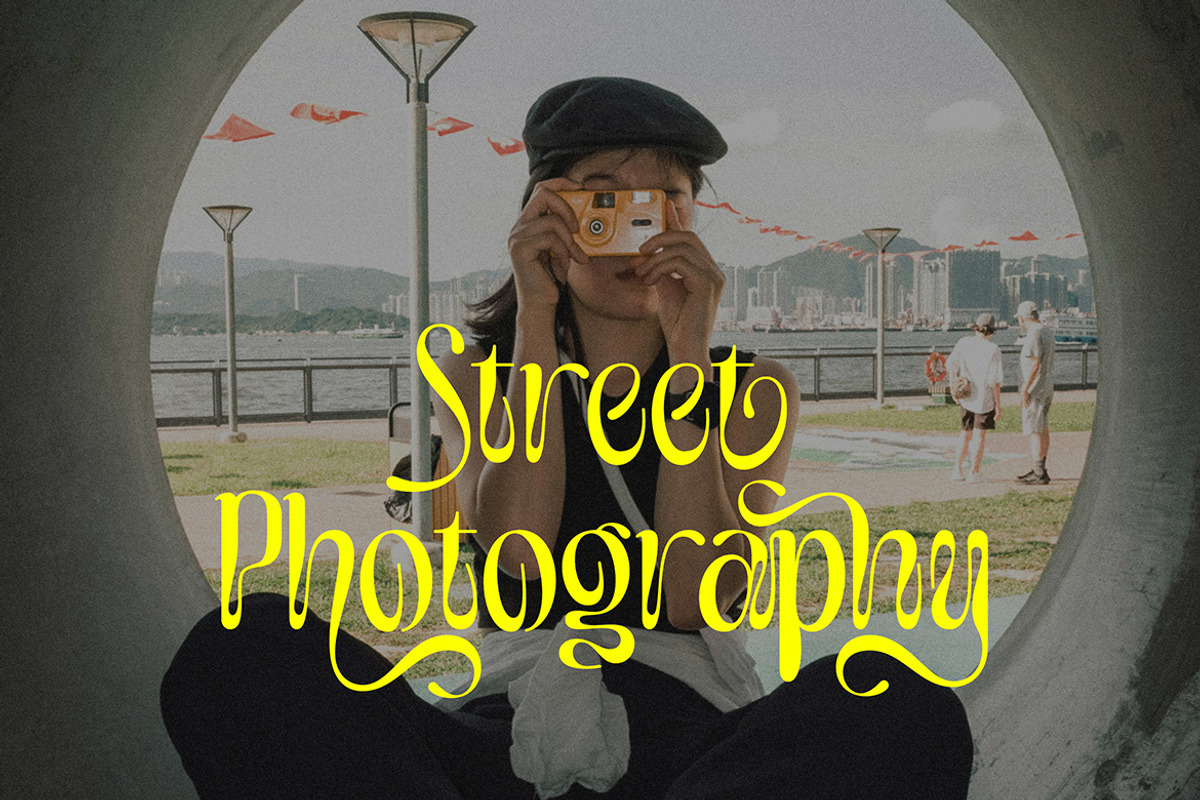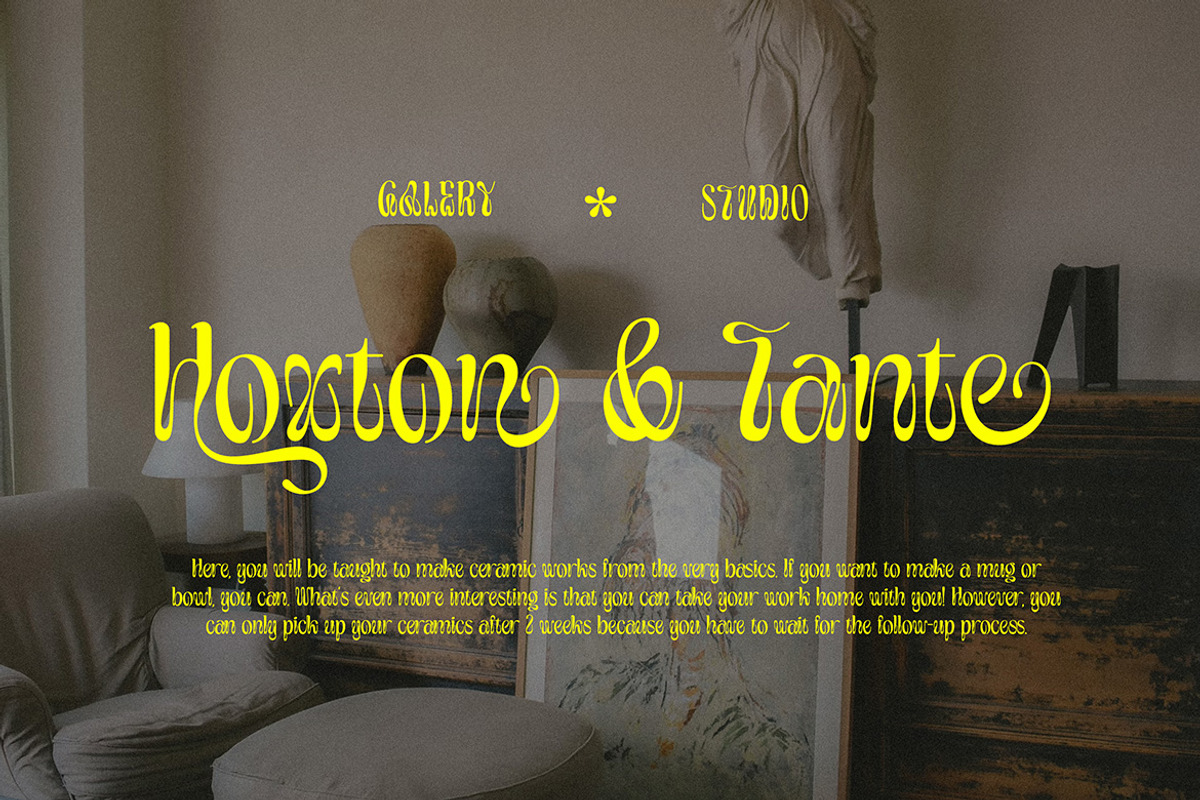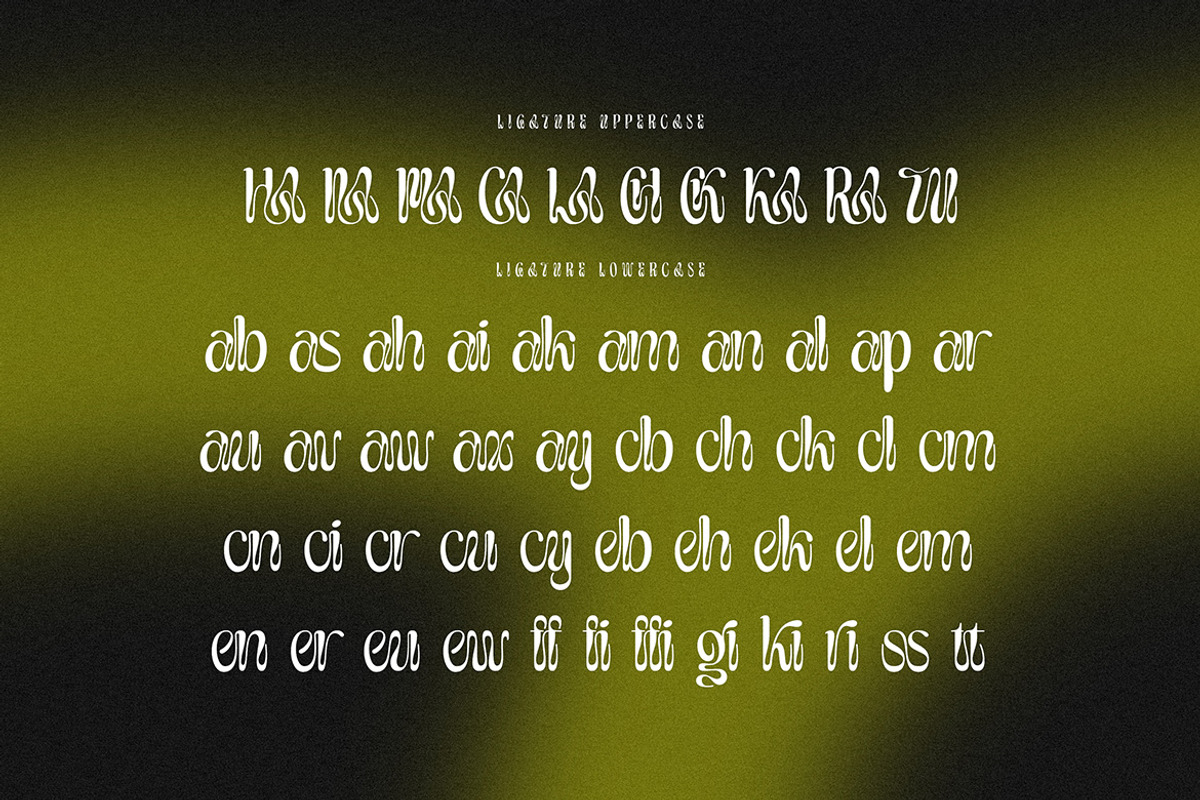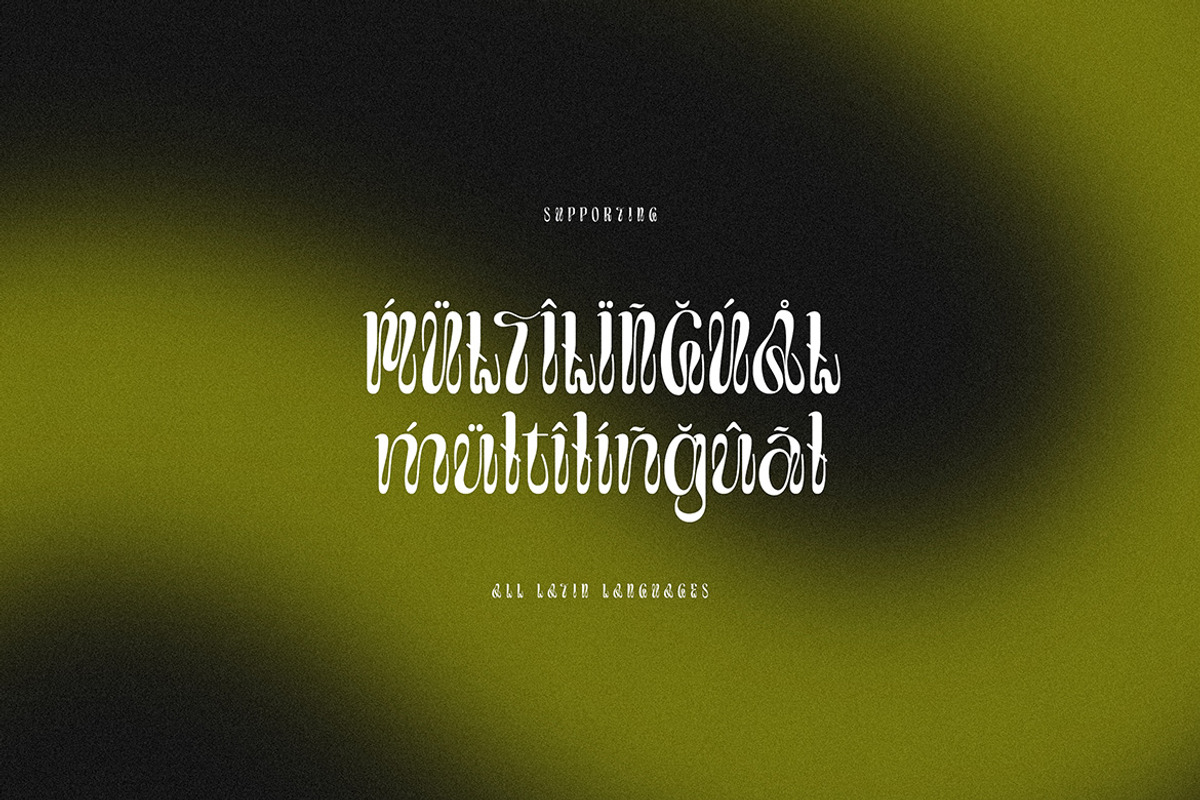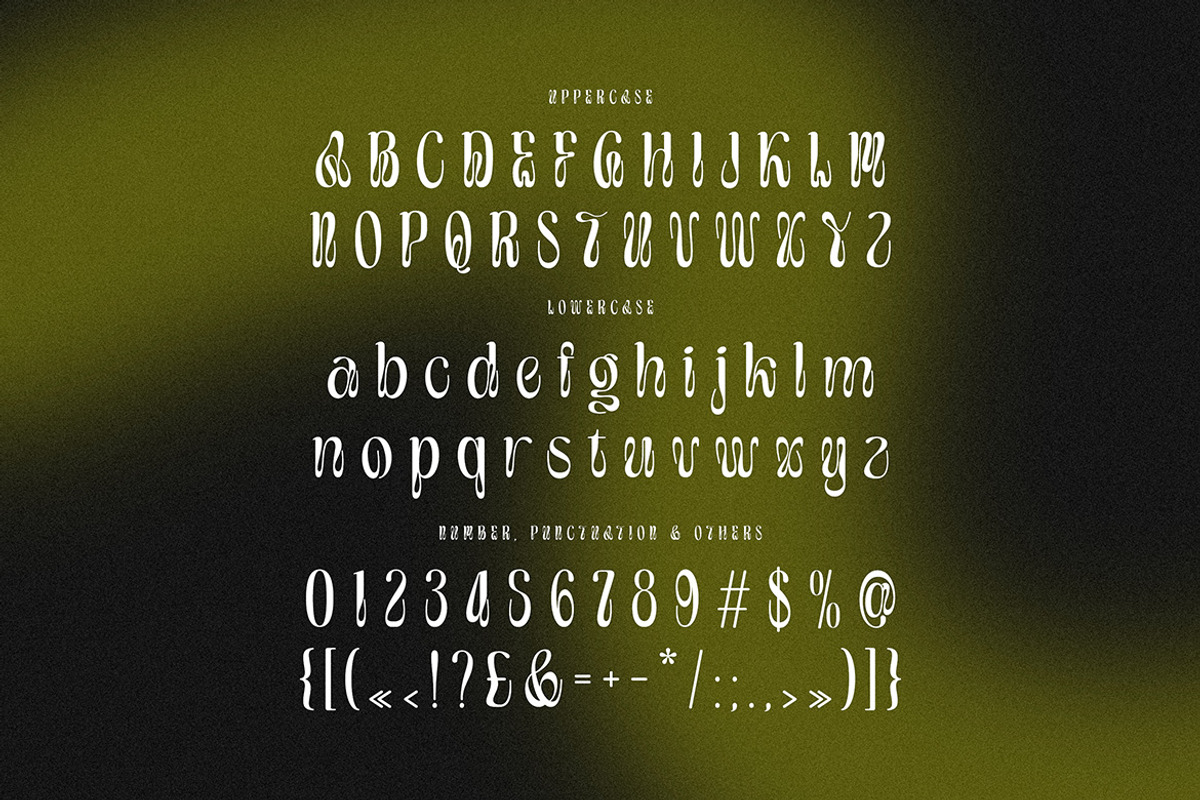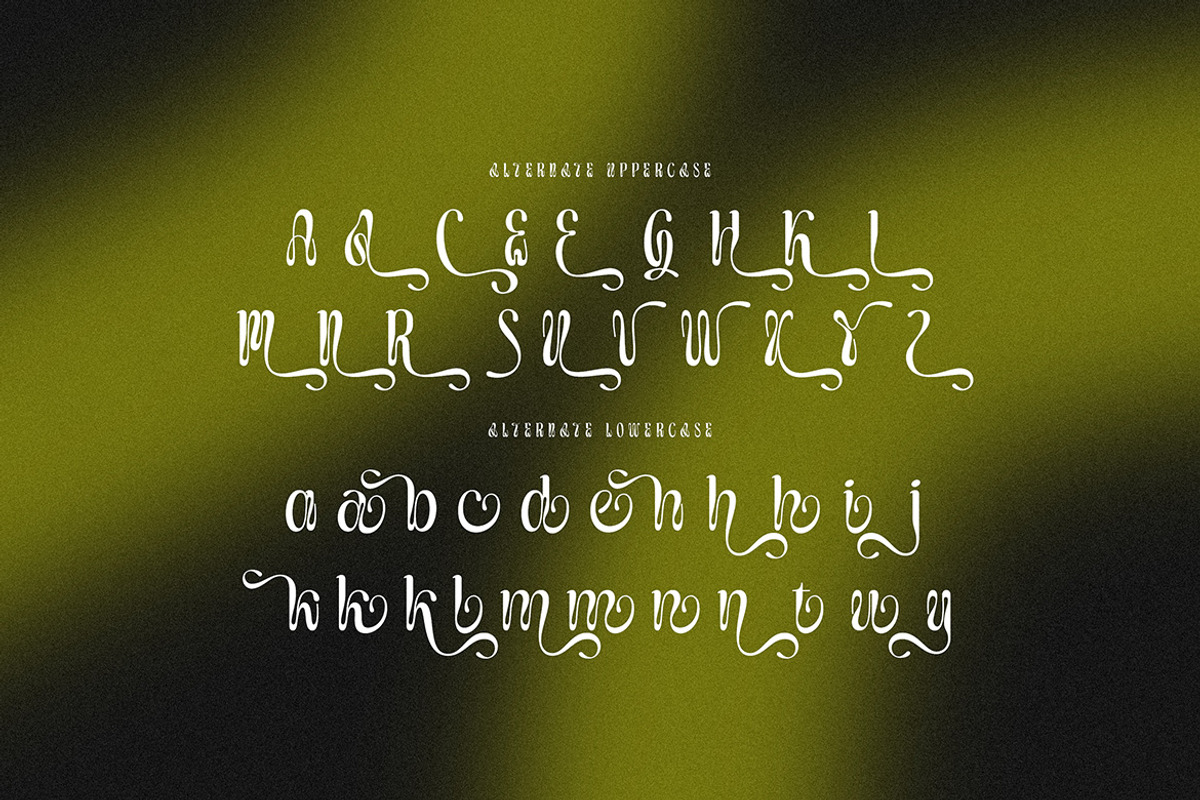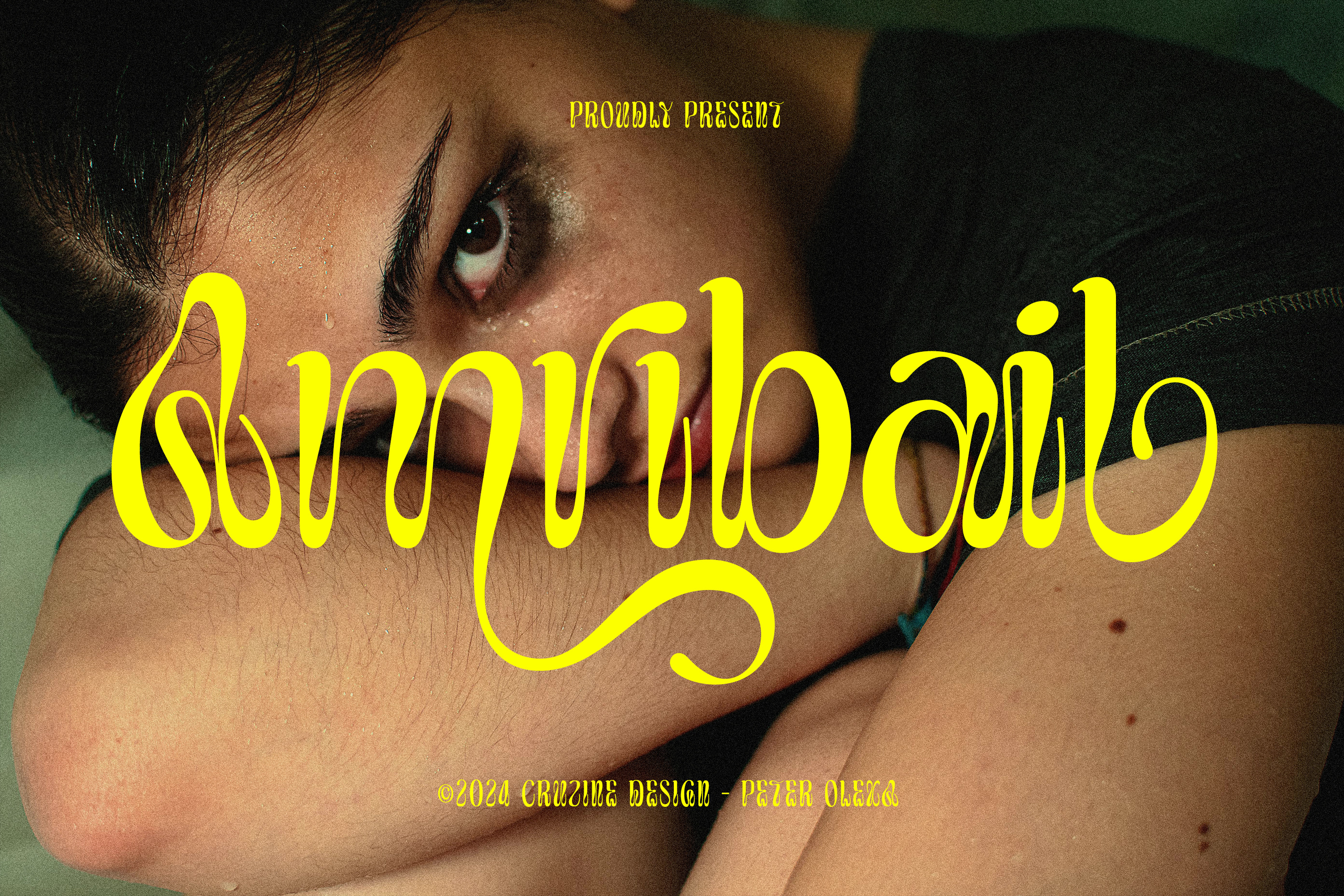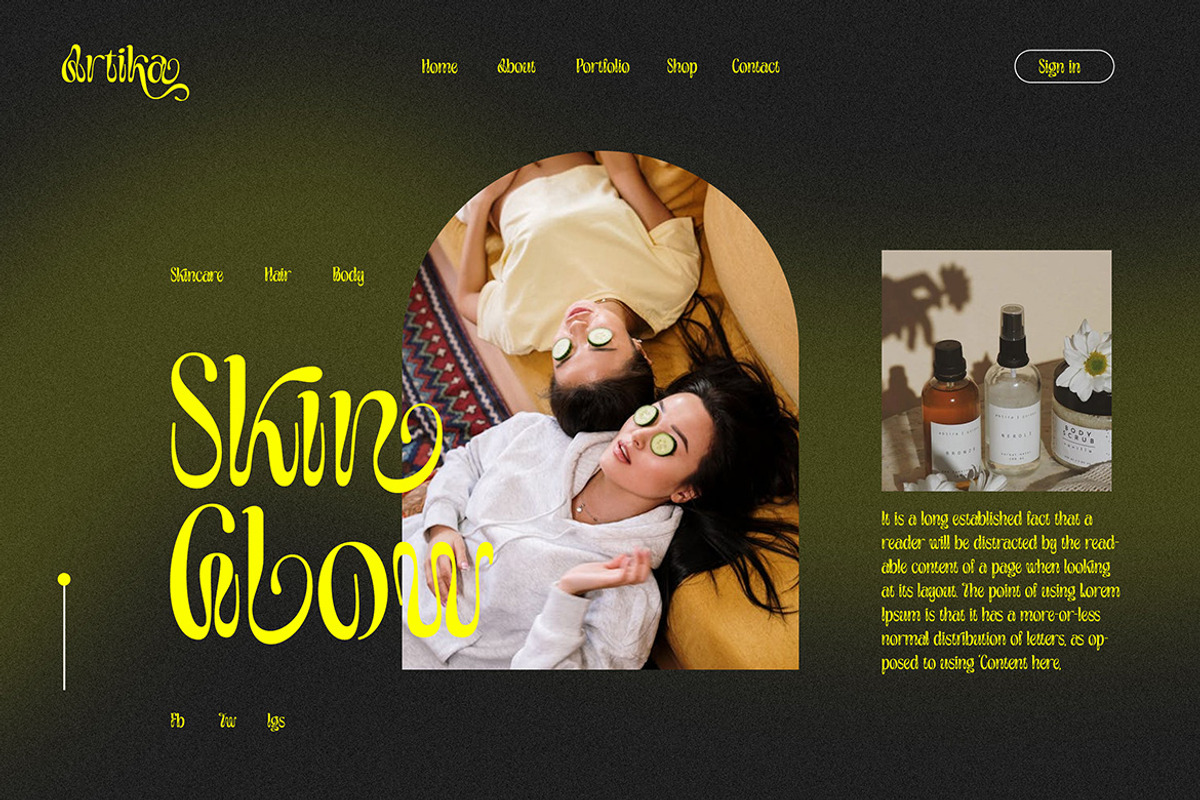
Amribail Groovy Retro Font
Playful, groovy, funny, retro & rounded style sans serif font for your new modern projects. Happy, cute, bold and quirky style on Amribail font will be great for any branding project. Lot of alternates and ligatures will help you to create unique and original logo design or website header! Enjoy :)
- Alternate characters
- Lot of ligatures
- Great for modern branding projects!!